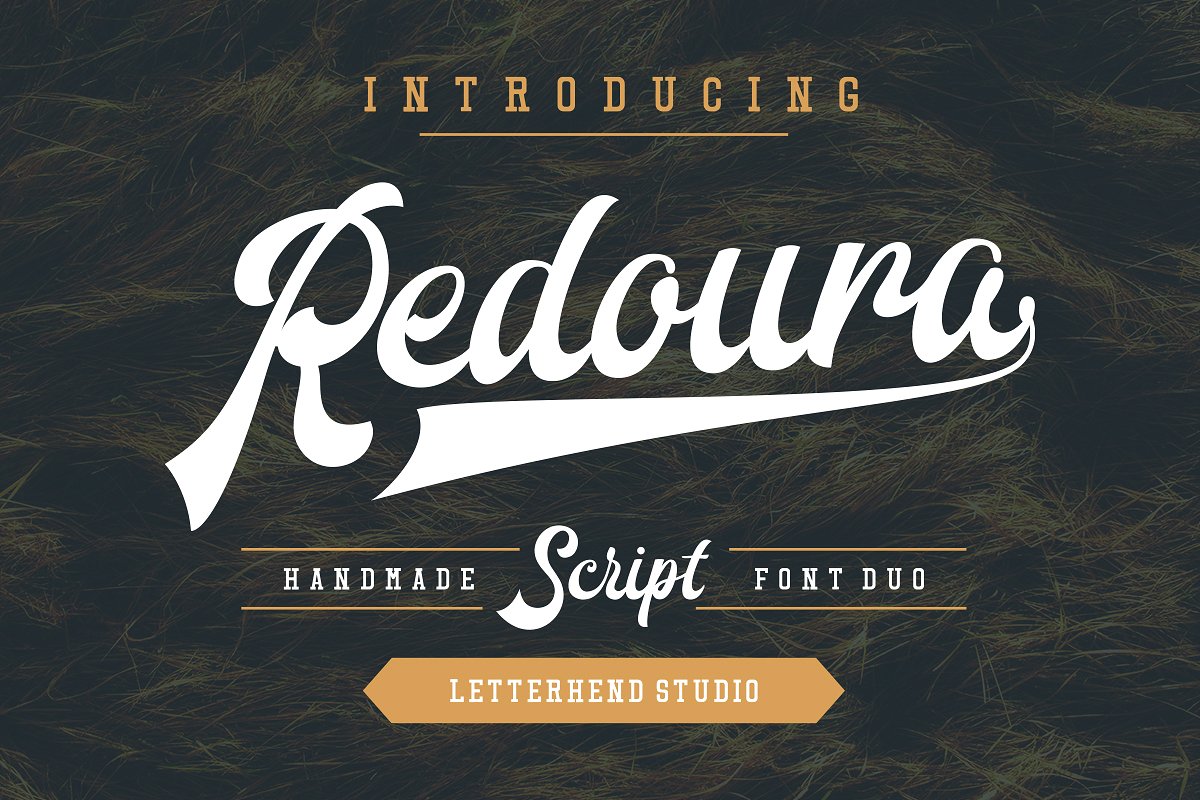
Redoura Font Duo
Redoura Font Duo is a script typeface inspired by 70’s font style and Script Sports font style which is absolutely awesome for logotype / wordmark, especially for sports theme logos.